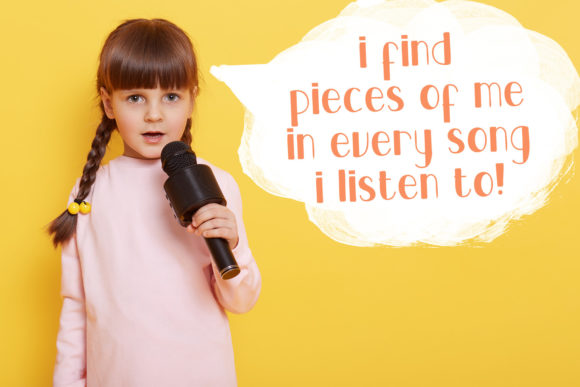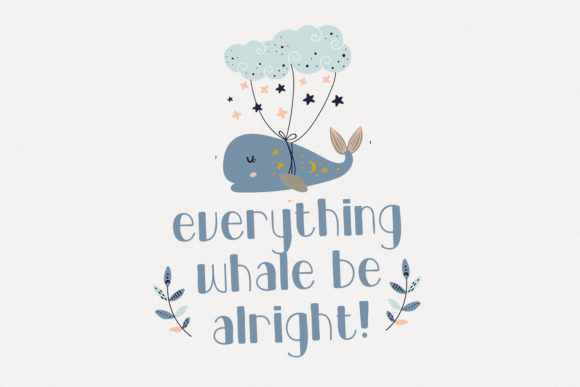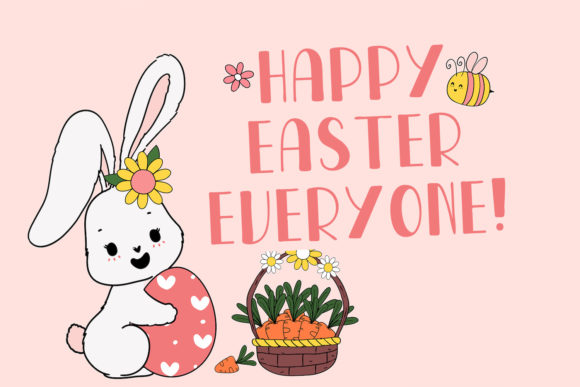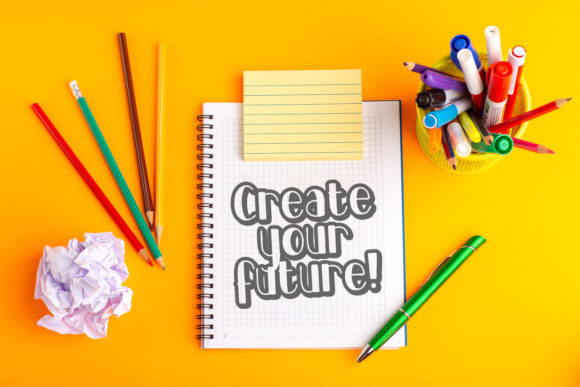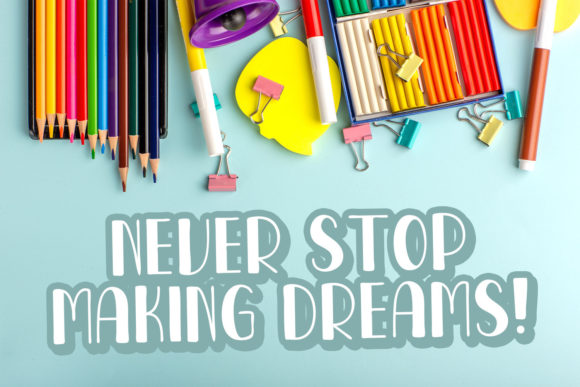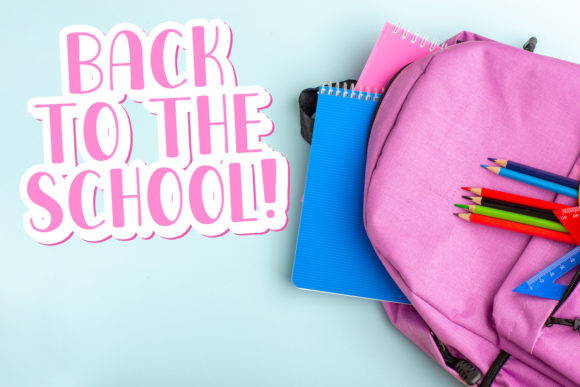
Unleash the Playful Spirit: Discover Barney Pop Font
Remember the rush of excitement when you were a kid, surrounded by colorful crayons, paint, and an endless supply of imagination? For many of us, those carefree days are etched in our memories as a time of unbridled creativity and joy. As designers, we strive to recapture that magic in our work, and that’s where Barney Pop Font comes in – a cool and playful display font that embodies the very essence of playfulness and authenticity.
Designed with children’s activities and school projects in mind, Barney Pop Font is the perfect choice for anyone looking to add a touch of whimsy to their designs. Its value lies not only in its aesthetic appeal but also in its versatility, making it a valuable addition to any designer’s toolkit.
Barney Pop Font Key Features
- Font Family: Barney Pop Font is a sans-serif typeface designed for fun and playful purposes.
- Unique Characteristics: Barney Pop Font features a bold, rounded design with a pop art-inspired aesthetic, making it perfect for creating eye-catching headlines and titles.
- Font Styles: The font includes multiple styles, including regular, bold, italic, and bold-italic, offering flexibility for various design applications.
- Legibility: Despite its playful nature, Barney Pop Font is designed to be highly legible, ensuring that the text remains clear and readable even at smaller font sizes.
Barney Pop Font Review
I recently had the chance to work with the Barney Pop Font, and I must say it’s a unique and eye-catching choice. ✨ The font’s playful, rounded edges and bold lines make it perfect for creating a fun and youthful atmosphere in your designs.
Here are some of the things that work well with Barney Pop Font:
- ✨ Excellent for children’s content, such as educational materials, kids’ magazines, or nursery decor.
- ✨ Great for creating a sense of excitement and energy in your designs.
- ✨ Can be used effectively for branding and logos that require a playful touch.
- ⚠️ May not be suitable for more formal or professional designs.
- ⚠️ Can be overwhelming if used excessively or in small sizes.
- ⚠️ Limited flexibility in terms of customizations and variations.
Overall, I think the Barney Pop Font is a solid choice for designers looking to add a playful touch to their work. While it may not be suitable for every project, it’s a great option for creating a fun and engaging atmosphere.
Barney Pop Font is ideal for:
- Playful branding and marketing materials
- Whimsical and fun social media graphics
To get the most out of Barney Pop Font, try:
- Pairing it with bright and bold colors
- Using it in combination with other playful fonts